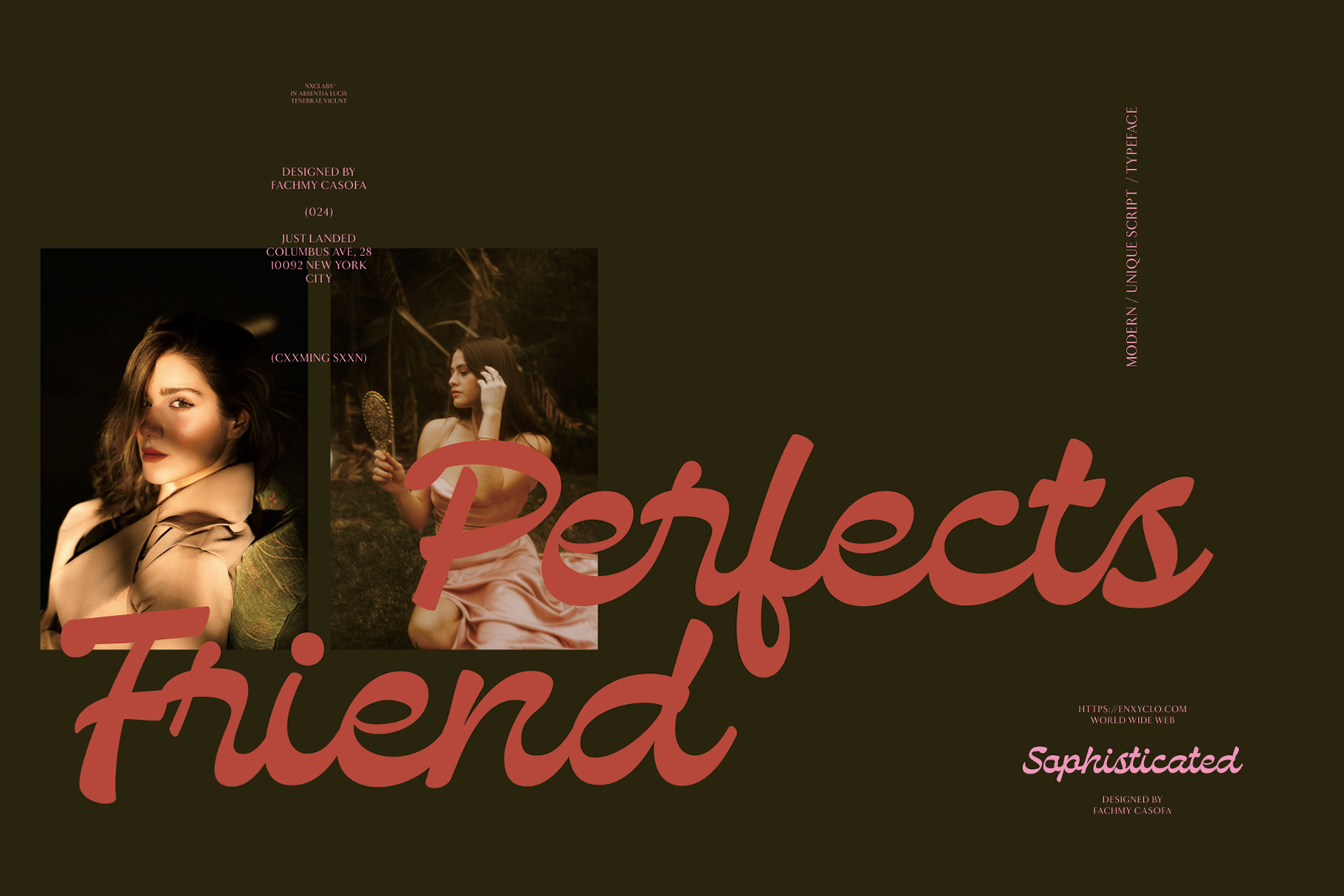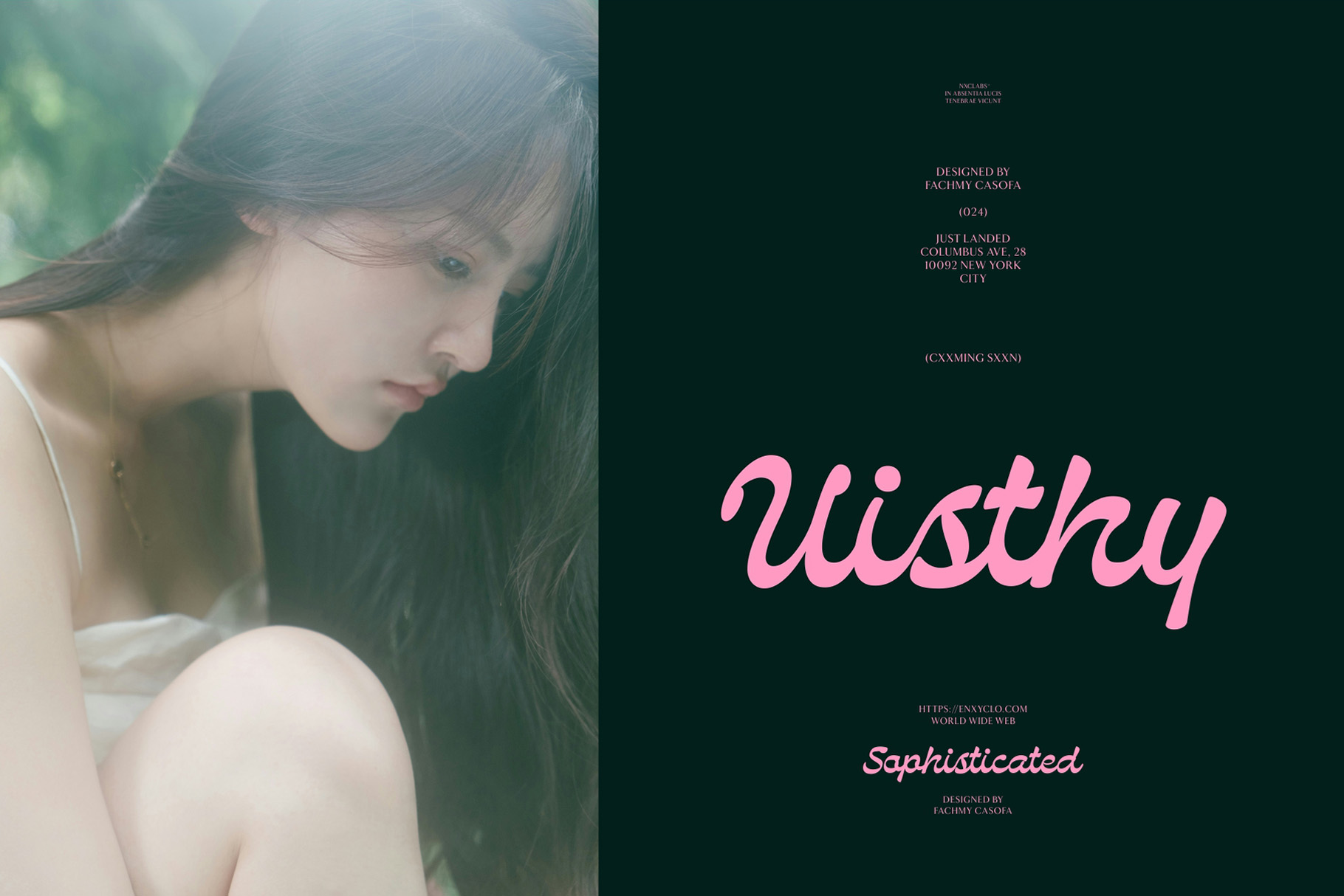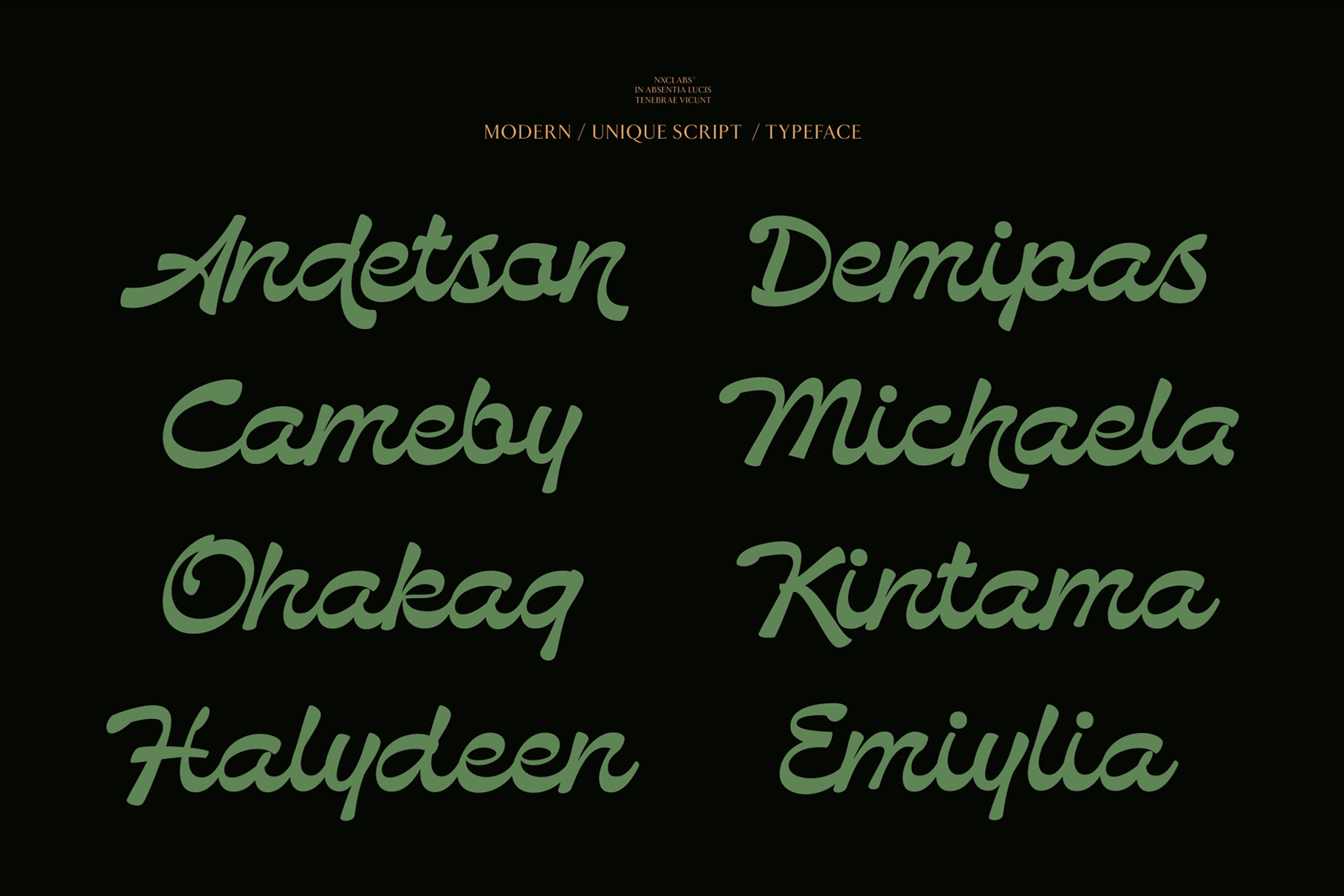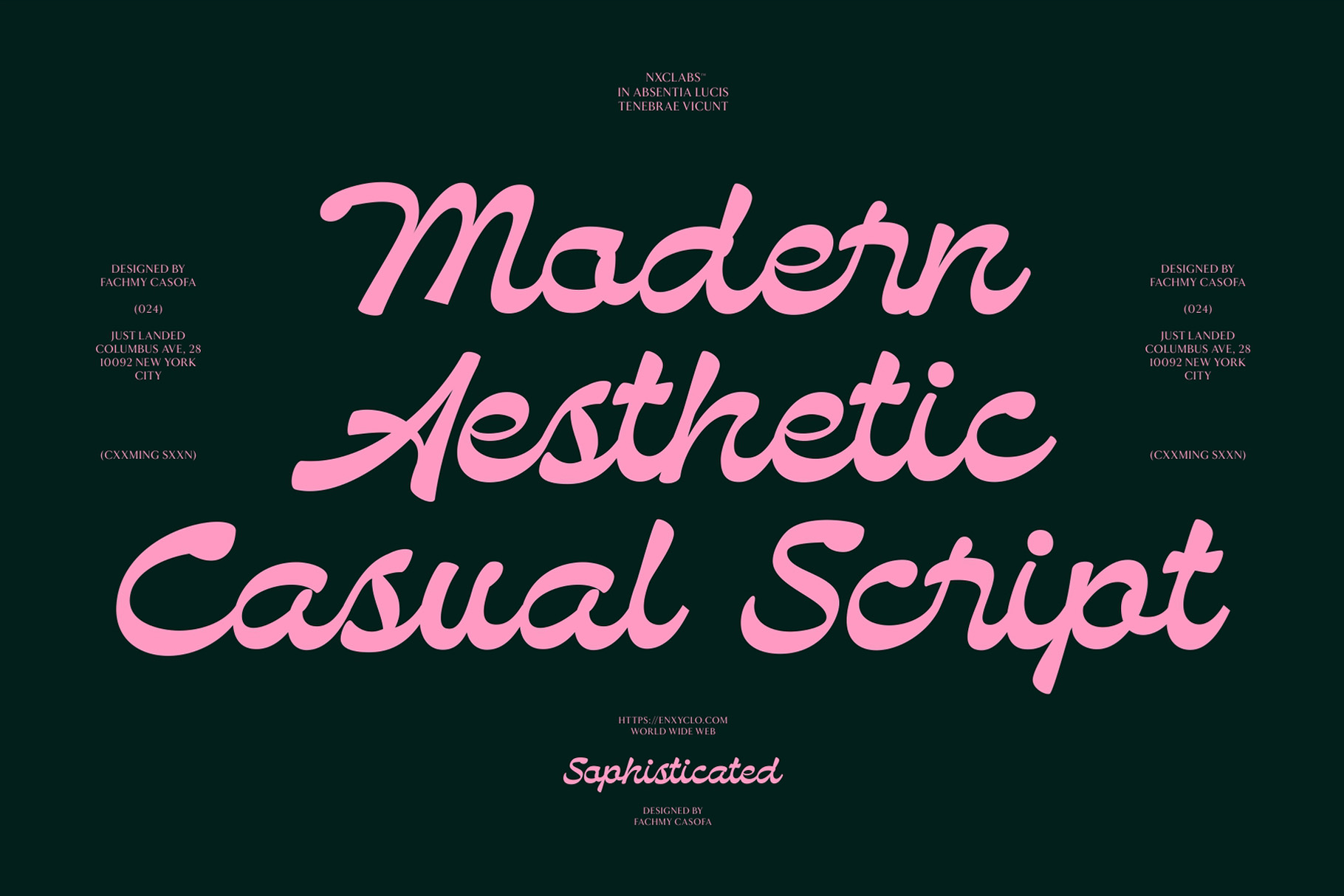
Bendstag Font
Bendstag is a bold and dynamic display font with a strong, modern edge. Featuring sharp angles, thick strokes, and a commanding presence, it’s perfect for branding, posters, and eye-catching headlines. Its rugged yet stylish design blends contemporary aesthetics with a touch of industrial flair, making Bendstag an ideal choice for impactful and attention-grabbing typography.